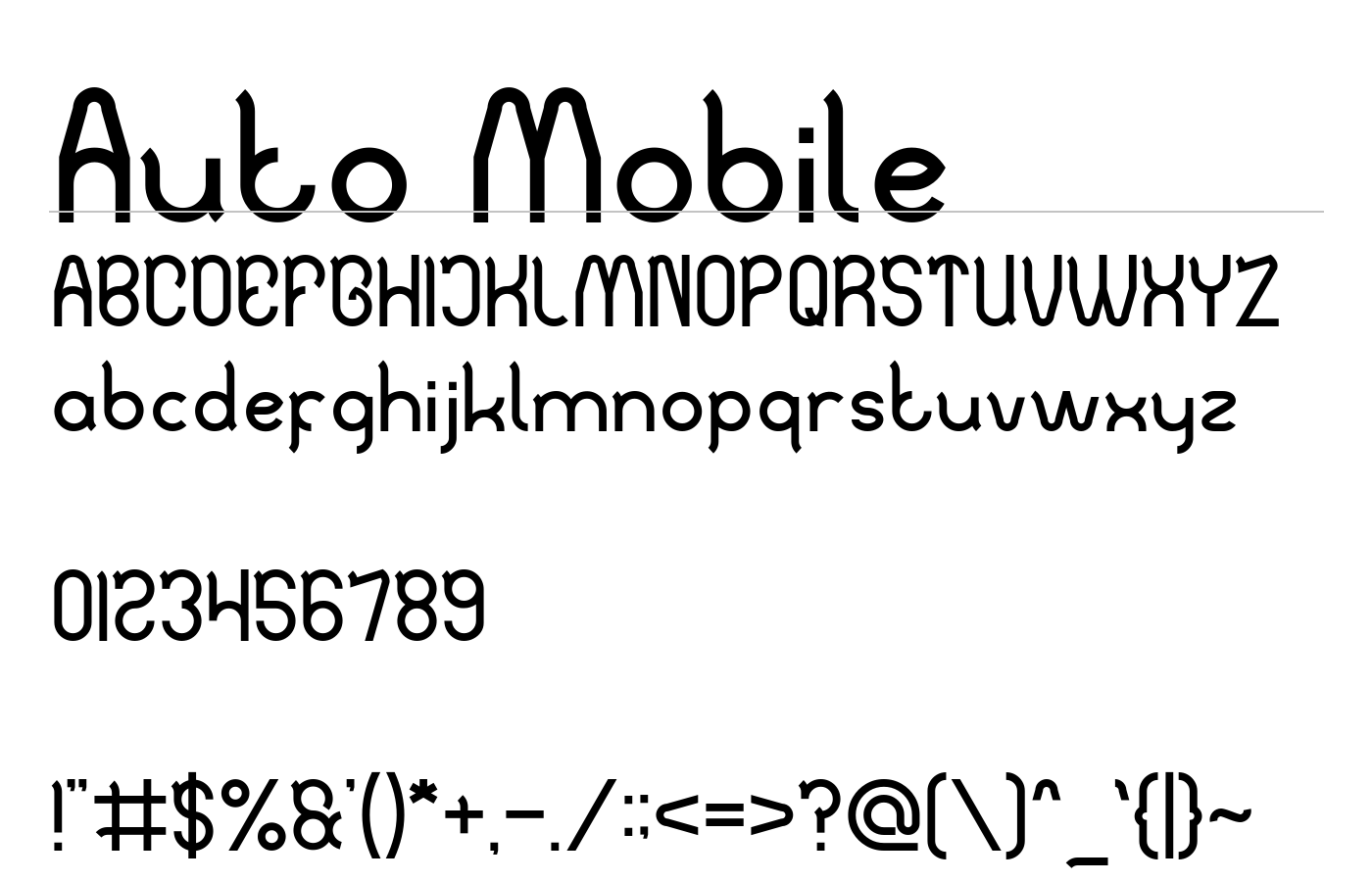
Auto Mobile is a distinctive sans serif font with a modern, geometric style and unique angular details that give it a technical, futuristic feel. Its narrow width and medium weight, combined with sharp terminals and a high x-height, make it well-suited for eye-catching headlines, logos, and branding in industries related to technology, automotive, and innovation. This font balances a clean structure with quirky letterforms, making it ideal for designs that want to stand out with a sleek, contemporary personality.
Auto Mobile Font